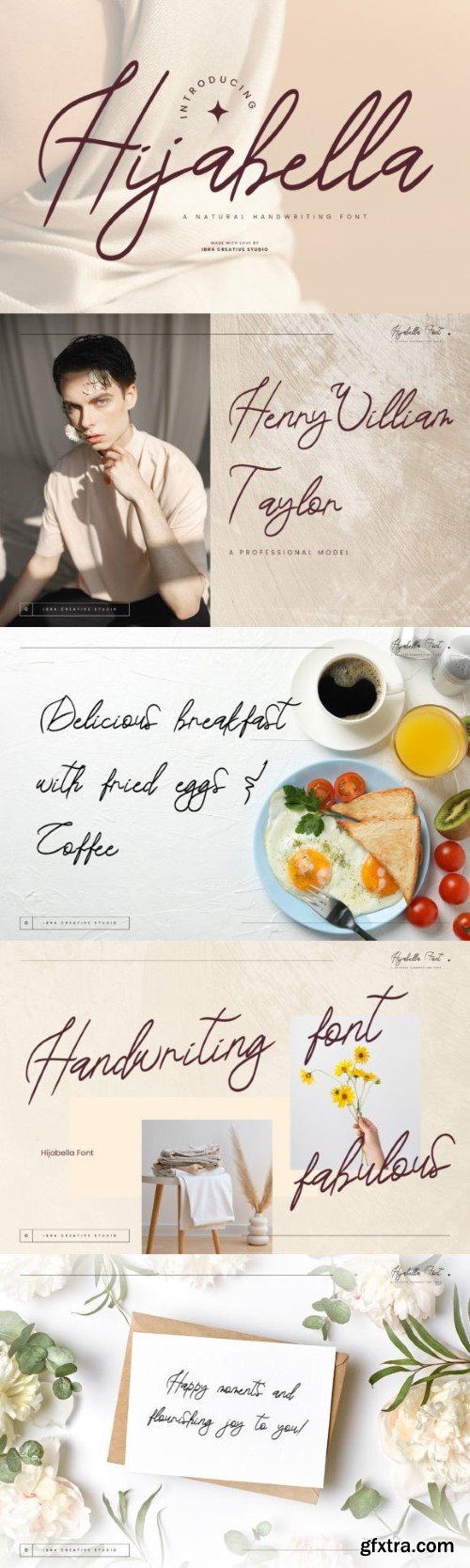
希芭拉字体
Hijabella, a natural handwriting font, weaves an organic elegance into the realm of digital typography. With fluid strokes and a graceful rhythm, this font emulates the authenticity of hand-scripted messages. Each letter carries a unique charm, reflecting the imperfections and nuances found in real handwriting. The subtle variations in line thickness and the gentle slant of characters create an inviting and personal touch, reminiscent of pen meeting paper.